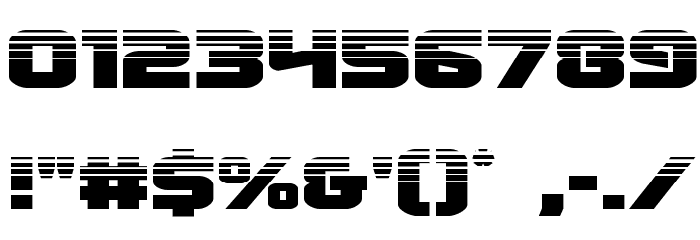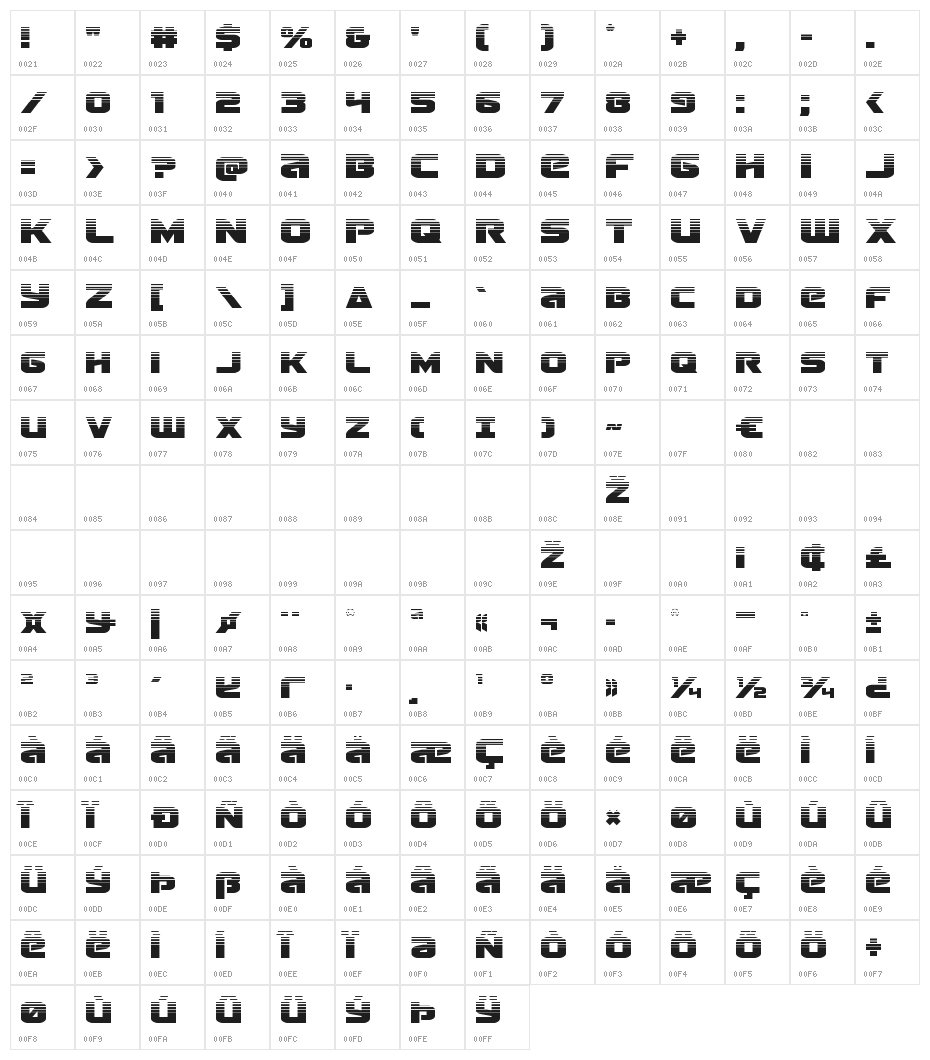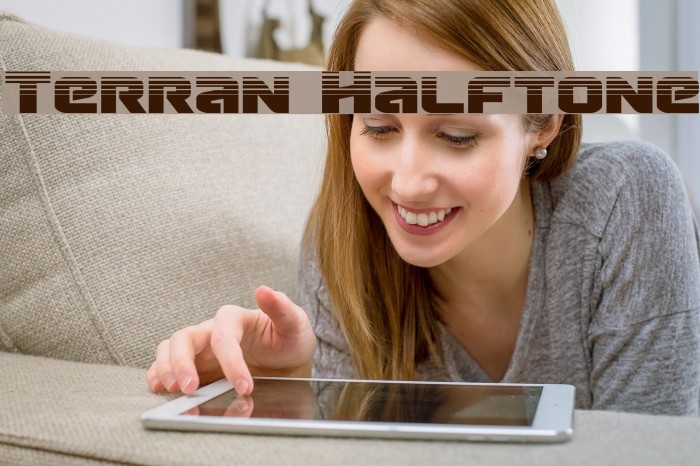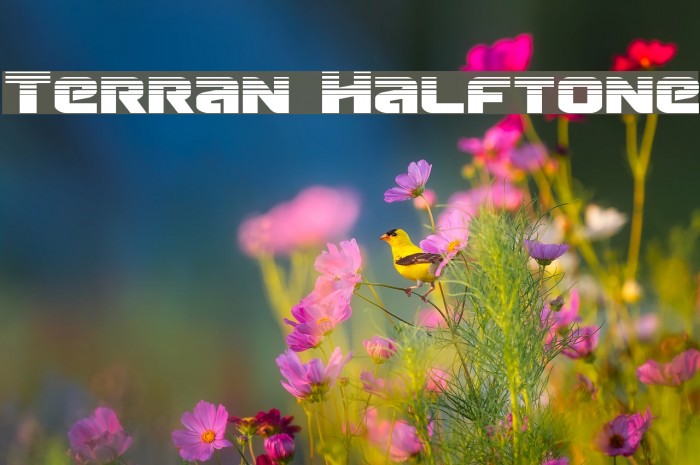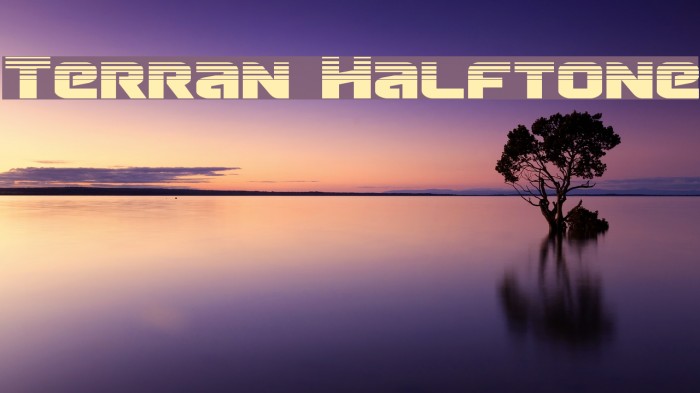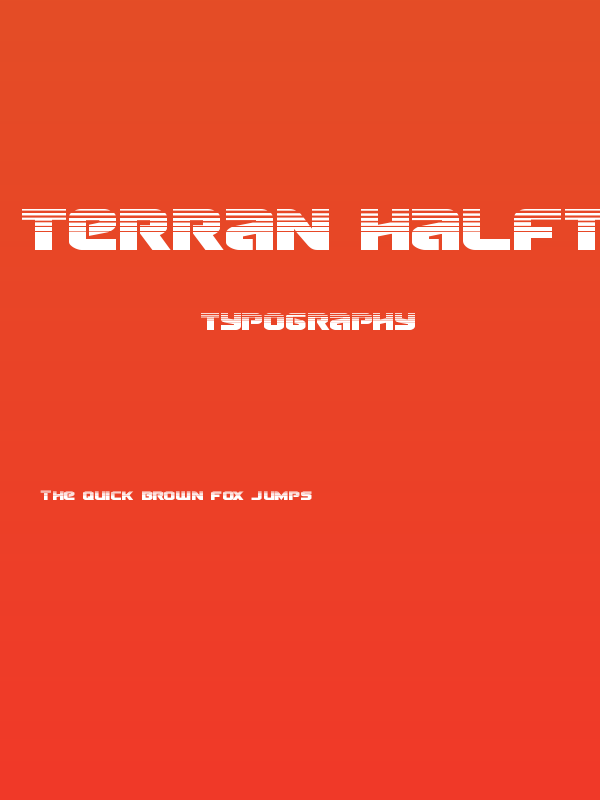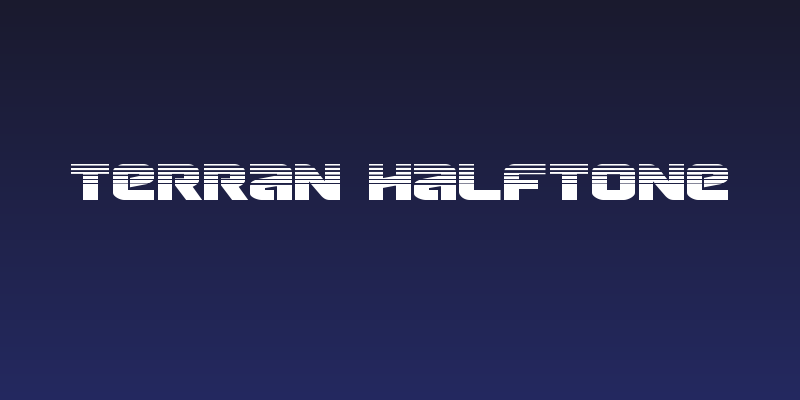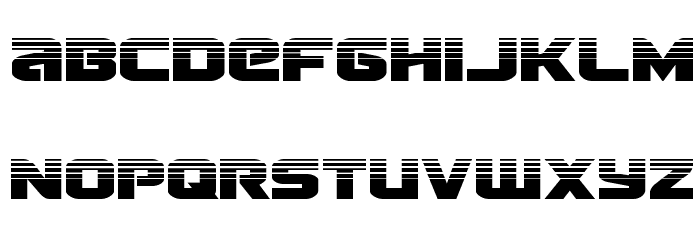
Terran Halftone Font
Terran Halftone Description
This font features a bold and futuristic design, characterized by its unique halftone pattern that runs horizontally across each character. The letters are constructed with a strong geometric structure, giving them a modern and industrial feel. The use of horizontal lines creates a sense of movement and dynamism, making it ideal for projects that require a bold statement. The uppercase and lowercase letters maintain a consistent style, while the numbers and special characters are designed to complement the overall aesthetic. This font is perfect for creating eye-catching headlines, posters, and branding materials that need a contemporary edge.